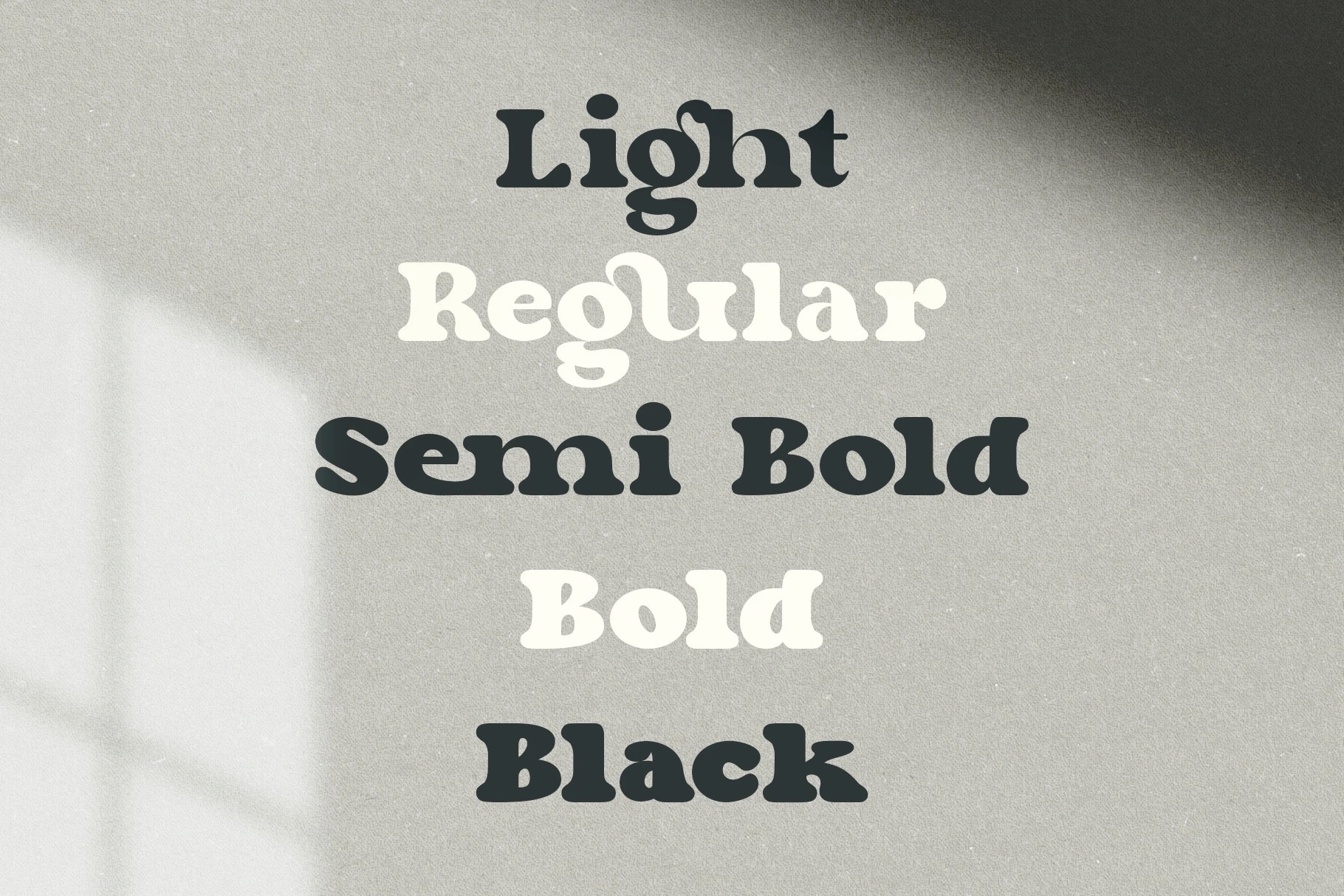
There’s a specific kind of typography that defined the visual culture of the 1970s and 80s — thick, confident, with just enough groove to feel alive. You’ve seen it on vintage record sleeves, old movie posters, Saturday morning cartoon titles, and the kind of logo design that somehow still looks cool fifty years later. It’s bold without being aggressive, retro without being stiff, and full of a warmth that modern minimalism often struggles to replicate.
Bunga captures exactly that energy. Designed by Burntilldead Studio as a tribute to the typographic spirit of those two decades, it’s a retro bold font family that functions like a time machine — one that lands you somewhere between a 1974 concert poster and a 1982 arcade cabinet title screen, in the best possible way.
Bunga is a classic, elegant retro display font family from Burntilldead Studio. Inspired by the bold, groovy typefaces that dominated graphic design from the late 1960s through the 1980s, it was designed to bring that decade’s visual energy into contemporary design work — to let modern projects tap into nostalgia without just copying an old aesthetic.
What sets Bunga apart from generic retro fonts is how it handles that balance. It’s clearly rooted in a specific era, but it’s been crafted with enough attention to detail and modern technical quality that it works beautifully in present-day design contexts. You can use it on a brand today and it won’t look like you just scanned something from a 1979 catalog — it looks intentional and considered.
One of the things that makes Bunga genuinely useful rather than just decorative is the depth of its weight range. Most retro display fonts give you one weight — usually bold — and leave you to figure out everything else. Bunga comes with five:
The lightest weight in the family, Bunga Light brings a more delicate expression of the retro aesthetic — still clearly retro in its letterforms, but with a refinement that works well for subheadings, secondary elements, or contexts where you want the retro feel without full visual weight. It’s also a great pairing option alongside the heavier weights when you want typographic contrast within the same font family.
The sweet spot of the family for most applications. Regular has enough visual weight to make an impression as a headline font while still being versatile enough to work across a wide range of design contexts — from editorial to packaging to digital content. This is the weight most designers will reach for first.
Semi Bold sits in useful territory between Regular and Bold — for moments where Regular feels slightly too light but Bold feels like too much of a statement. Great for subheadings within a Bunga-led design system, or for brands that want confidence without maximum impact.
This is Bunga at full retro power. Bold is where the 70s-80s energy really comes alive — the thick strokes, the confident letterforms, the sheer visual presence that makes you want to put it on a poster at 200pt and frame it. For primary headlines, hero text, and any moment where maximum personality is the goal, this is the weight.
The heaviest weight in the family, Bunga Black is for designers who want to make a genuine statement. It’s the weight you use when subtlety isn’t the goal — large-format print, impactful social media graphics, or any situation where the typography itself needs to be the most powerful element in the design.
Understanding what Bunga is drawing from helps you use it more intentionally. The typography of the 70s and 80s had some specific characteristics that defined the era.
Letterforms were generous and rounded rather than sharp or geometric — there was a warmth and approachability to the shapes even when they were bold. Strokes were thick and confident, often with subtle variation that gave letters visual movement. Spacing was often tighter than we’d use today, creating a sense of energy and density. And there was a general boldness — both in weight and in concept — that reflected the cultural optimism of those decades.
Bunga translates all of this into a modern font family with proper technical construction, multilingual support, and OpenType features — taking the spirit of the era and making it properly usable for contemporary design work.
Bunga is a natural fit for any brand leaning into retro aesthetics — diners, record shops, vintage clothing stores, craft beverage brands, or any product that wants to evoke a sense of warmth, history, and character. The font communicates quality and craftsmanship through its visual connection to a pre-digital design era.
Music events, retro-themed parties, film festivals, and cultural events with a vintage vibe all benefit from Bunga’s bold energy. The heavier weights in particular have the kind of poster-worthy presence that makes event graphics feel genuinely designed rather than templated.
Bunga is more than a retro font — it’s a complete typographic system built around one of the most beloved visual eras in design history. The five-weight family gives you the flexibility to build an entire brand identity around a single typeface, while the alternates and ligatures give you the creative control to make it distinctly yours. If you’ve been looking for a font that brings genuine warmth, personality, and vintage character to your next project, Bunga is worth your attention. Get it at Burntilldead Studio — available in Desktop, Broadcast, Publishing, and Extended license options.